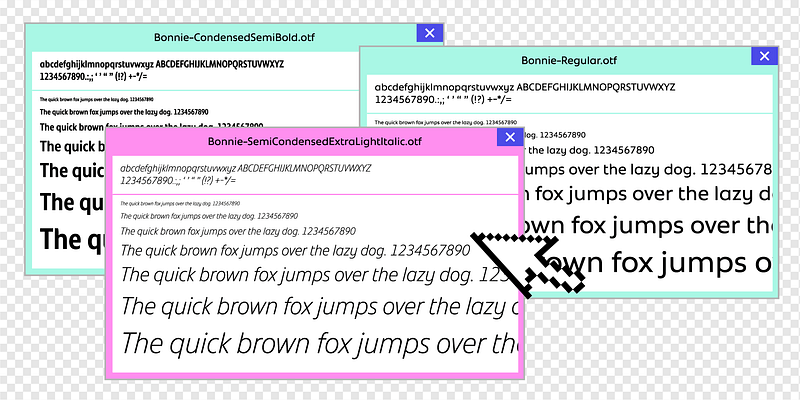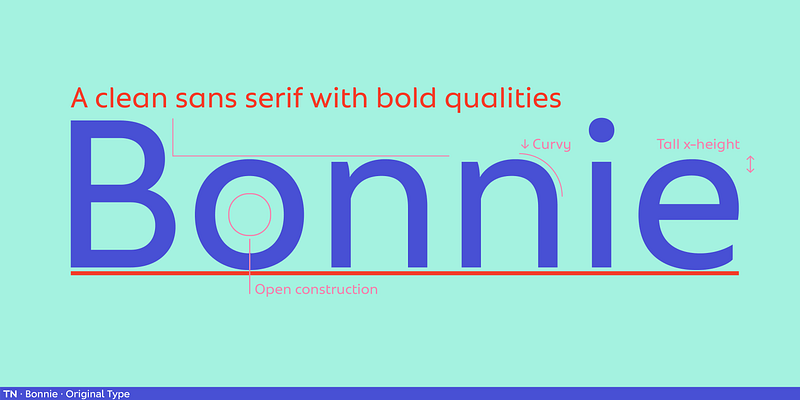
Bonnie was born out of the desire for a clean sans serif that combined the bold qualities of geometric typefaces from the twentieth century with soft and human qualities that produce a friendly atmosphere. Bonnie’s capitals speak a powerful and clear language, while its lowercase characters—with their large x-height, open construction, and curvy details—ensure that it addresses both aesthetics and functionality. Coming in three widths, Bonnie is a great tool for copy fitting in a variety of layouts.